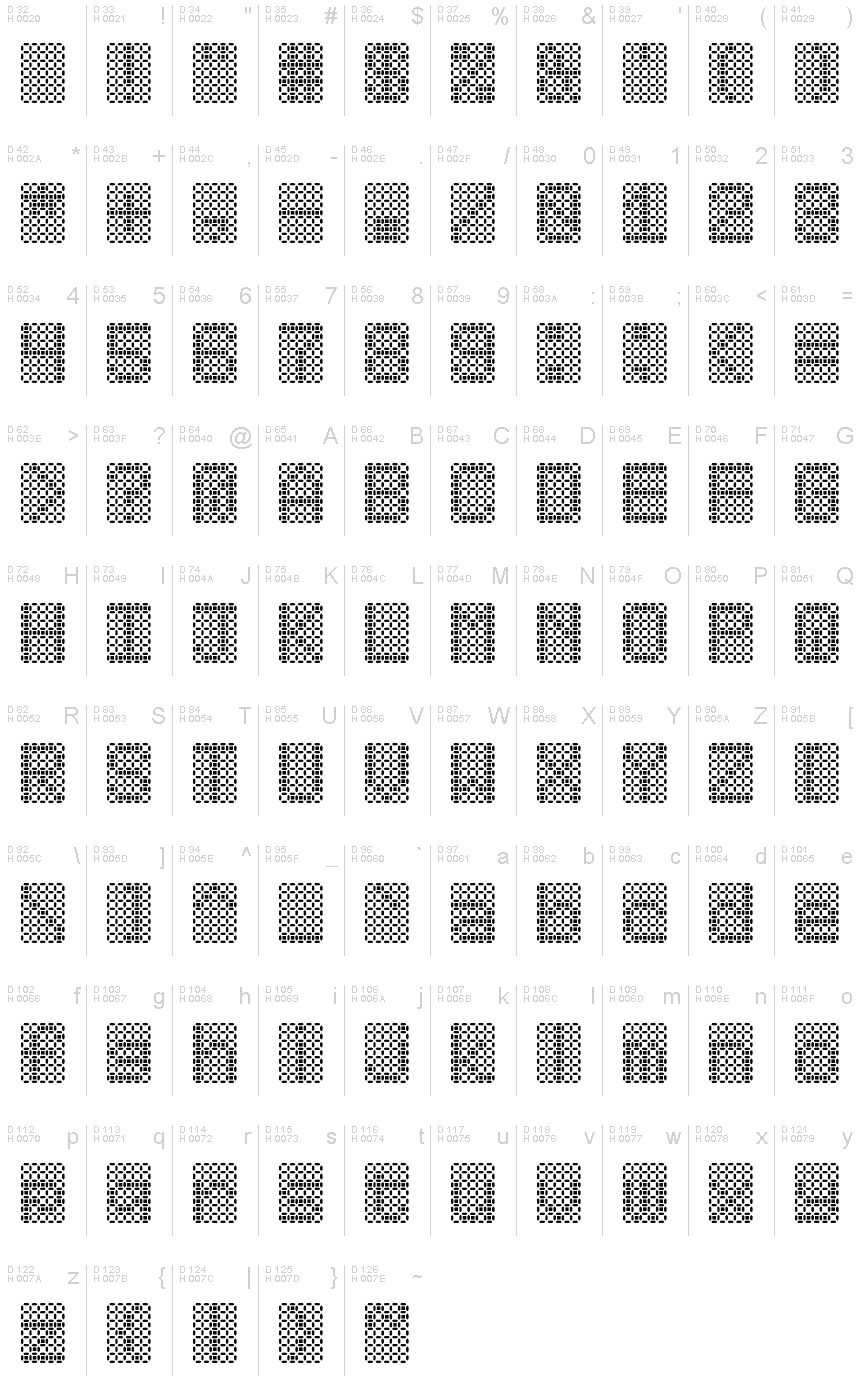
CelLCD Regular
Designer description: A 117-segment display made to have a more "mosaic" look. Try using this one at odd sizes, especially with antialiasing off! The resulting distortions occur in a consistent way which leads to many new uses for the font.